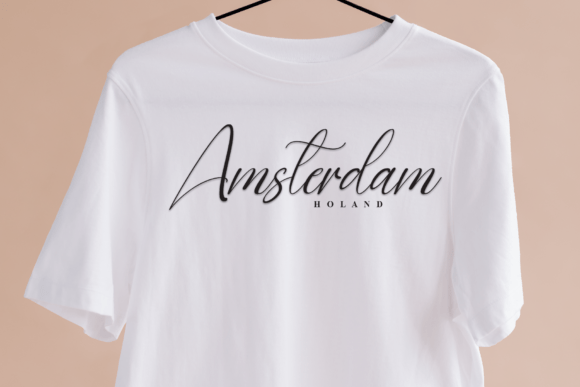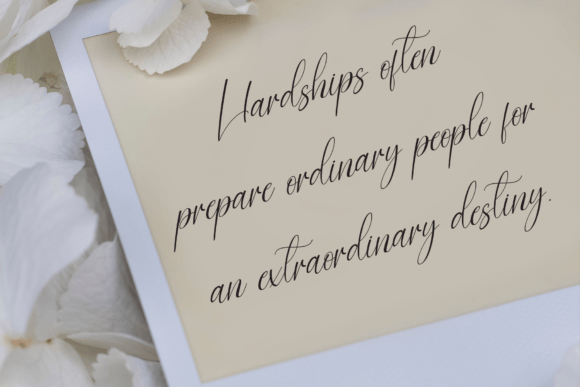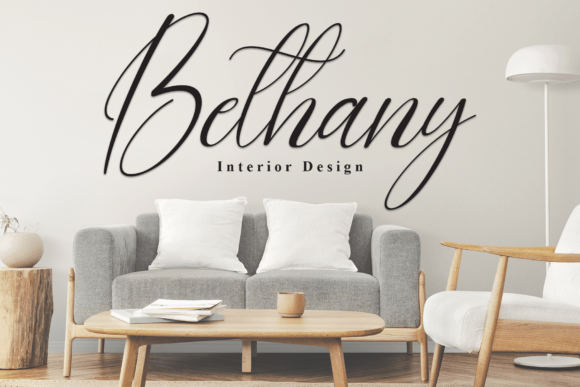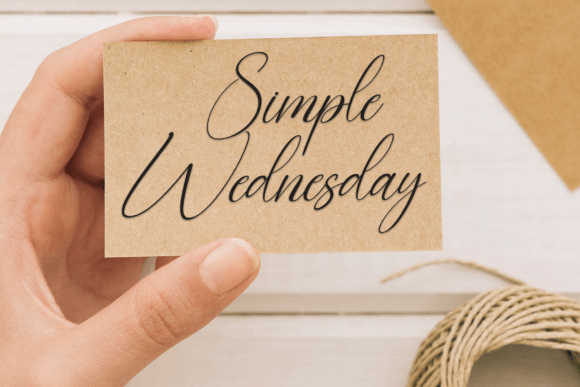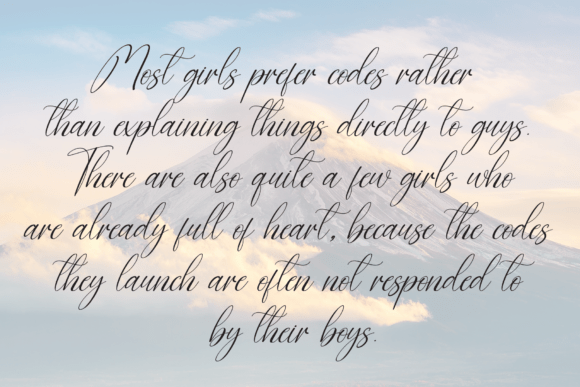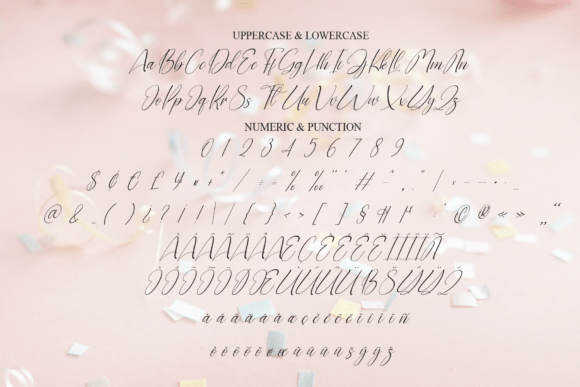
Introducing Confetti Font: Elevate Your Designs with Elegance and Charm
Are you looking for a font that can add a touch of sophistication and modern flair to your designs? Look no further than Confetti Font, a stylish handwritten script font that is perfect for a variety of creative projects. In this article, we’ll take a closer look at the features and benefits of Confetti Font, and explore how it can elevate your branding, invitations, social media, and more.
The Characteristics of Confetti Font
Confetti Font is a beautifully crafted handwritten script font that boasts flowing strokes and organic curves. This unique combination of elegant lines and modern twists brings warmth and sophistication to any project. The font’s refined touch and effortless charm make it perfect for designers and crafters who want to add a personal touch to their work.
Key Features of Confetti Font
- Handwritten Script Font: Confetti Font is a handwritten script font that mimics the natural flow of handwriting, giving it a personal and authentic feel.
- Elegant and Modern: The font combines elegance with a modern flair, making it perfect for a wide range of creative projects.
- Flowing Strokes and Organic Curves: Confetti Font’s flowing strokes and organic curves bring warmth and sophistication to any project.
- Refined Touch: The font’s refined touch and effortless charm make it perfect for adding a personal touch to your designs.
Use Cases for Confetti Font
Confetti Font is a versatile typeface that can be used in a variety of creative projects, including:
- Branding: Use Confetti Font to create a unique and memorable brand identity that stands out from the crowd.
- Invitations: Add a touch of elegance and sophistication to your invitations with Confetti Font.
- Social Media: Use Confetti Font to create eye-catching social media graphics that showcase your personality and style.
- Stationery: Confetti Font is perfect for creating custom stationery, such as letterheads, business cards, and more.
Benefits of Using Confetti Font
There are many benefits to using Confetti Font in your designs, including:
- Unique and Memorable: Confetti Font is a unique and memorable typeface that can help your designs stand out from the crowd.
- Elegant and Sophisticated: The font’s elegant and sophisticated feel makes it perfect for high-end brands and creative projects.
- Easy to Read: Confetti Font is easy to read, even at small sizes, making it perfect for a wide range of applications.
- Customizable: The font is highly customizable, allowing you to adjust the size, color, and style to fit your needs.
Tips for Using Confetti Font
Here are a few tips for using Confetti Font in your designs:
- Use it Sparingly: Use Confetti Font sparingly to add a touch of elegance and sophistication to your designs.
- Pair it with Other Fonts: Pair Confetti Font with other fonts to create a unique and visually appealing combination.
Confetti Font is a stylish handwritten script font that combines elegance with a modern flair. Its flowing strokes and organic curves bring warmth and sophistication to any project, making it perfect for branding, invitations, social media, and more. With its refined touch and effortless charm, Confetti Font is sure to elevate your designs and help you stand out from the crowd.